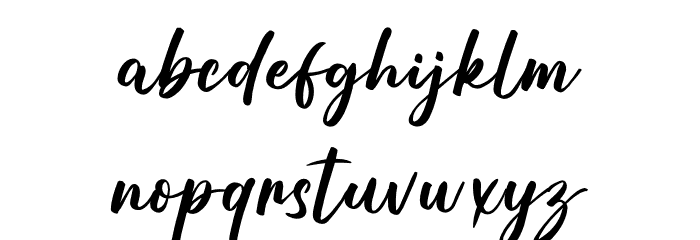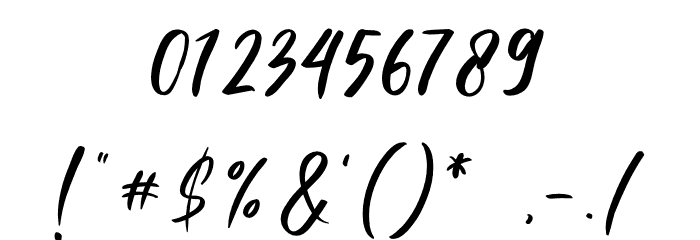
Emily Berlinda Font
This font exudes a lively and expressive character, with a handwritten style that combines elegance and playfulness. The uppercase letters are bold and slightly slanted, giving a dynamic feel, while the lowercase letters maintain a consistent flow with smooth, connected strokes. The numbers are clear and legible, matching the overall style of the alphabet. Special characters are thoughtfully designed to complement the font's aesthetic, making it versatile for various applications. The font's brush-like strokes and varying thickness add a touch of sophistication, making it suitable for creative and artistic projects.
A lively, handwritten font with elegant, brush-like strokes.
- Font: Emily Berlinda
- Proposed Projects: Ideal for wedding invitations, greeting cards, branding, and social media graphics.
- Category: Handwritten
- Use Case: Logos, Headlines, Invitations